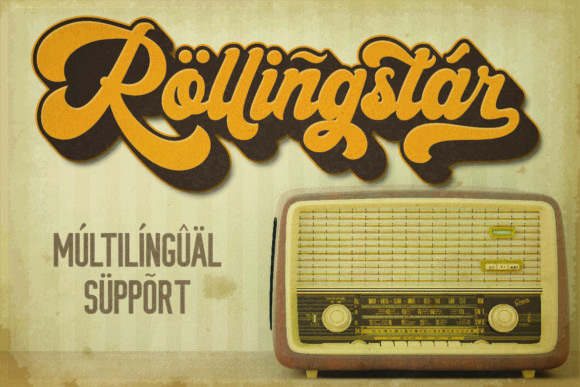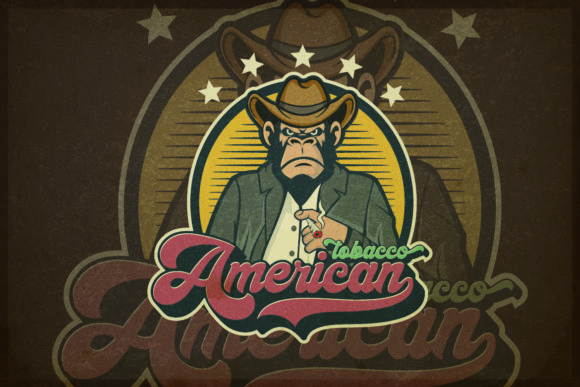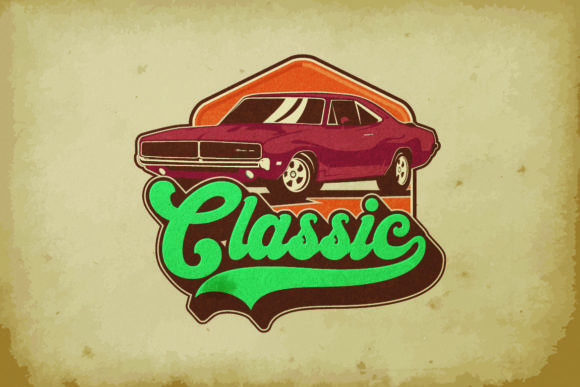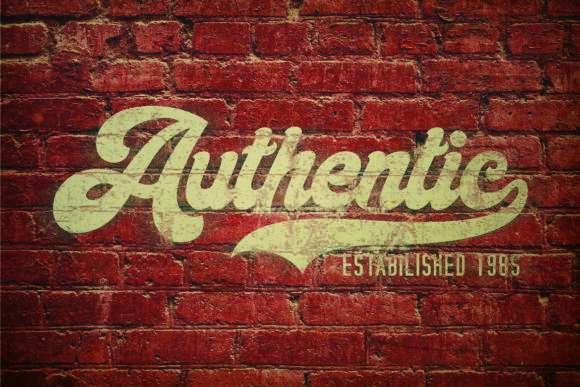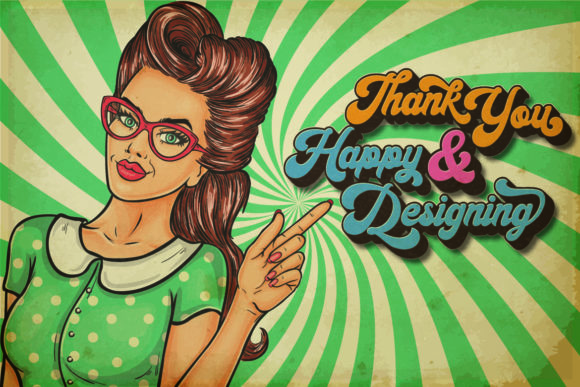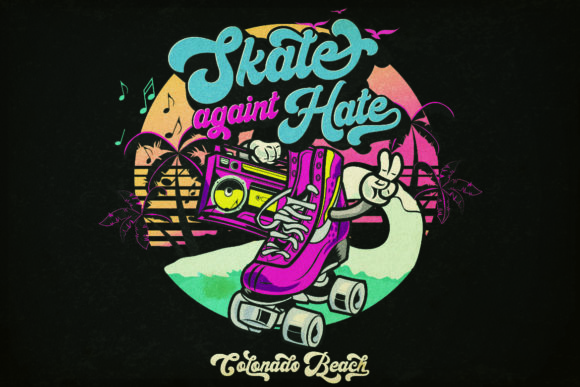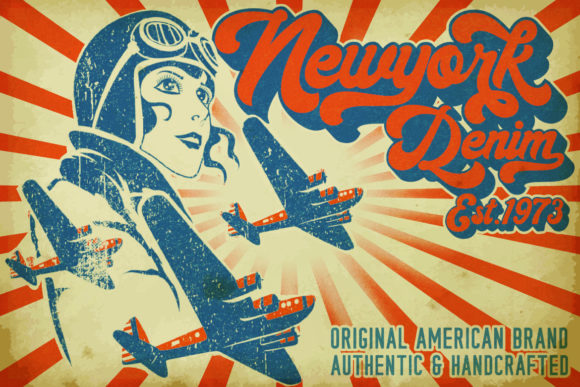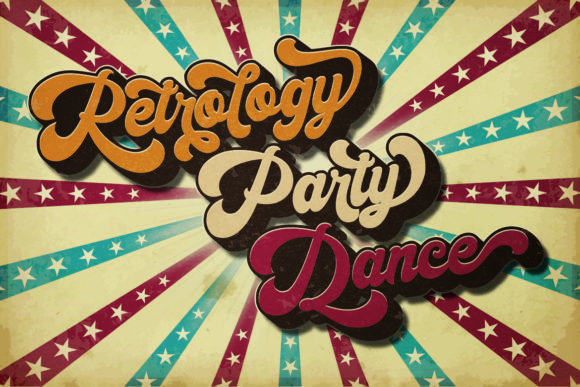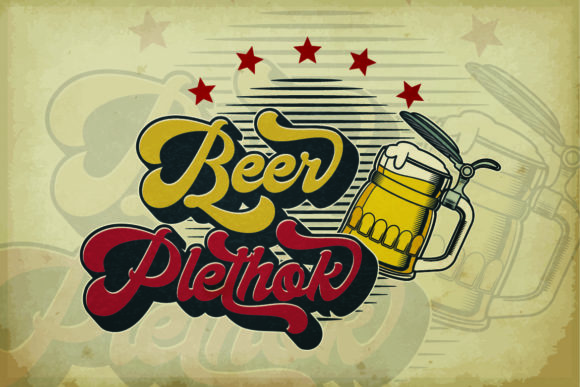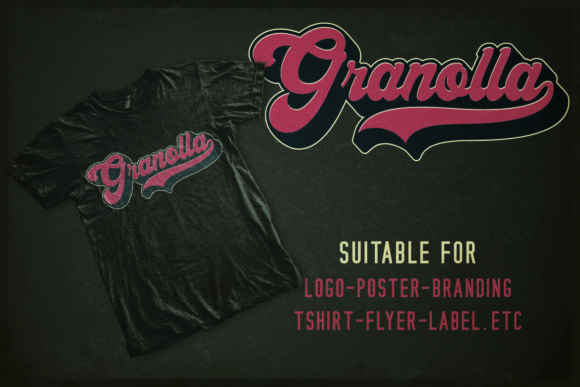
Halycoon Script Font
About Halycoon Script Font
Halycoon is a strikingly bold and fun handwritten font with a unique feel. Use it to turn any design project into a true standout!